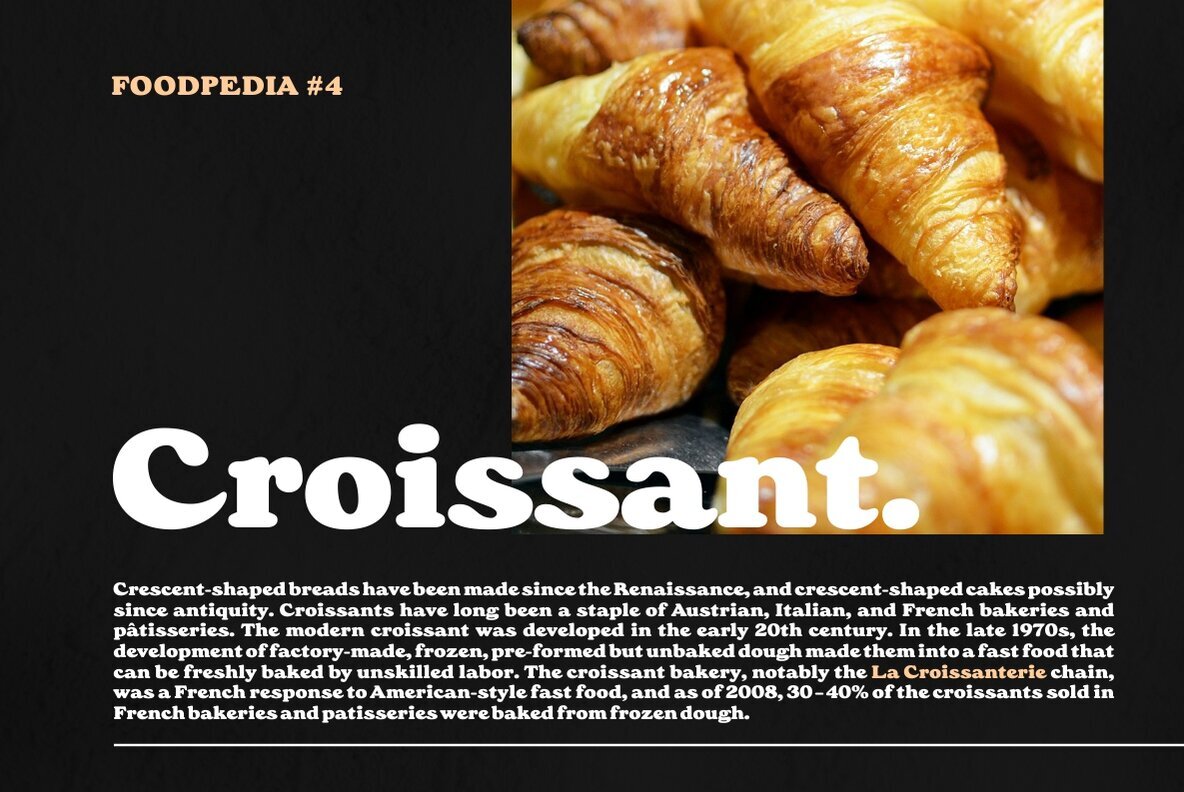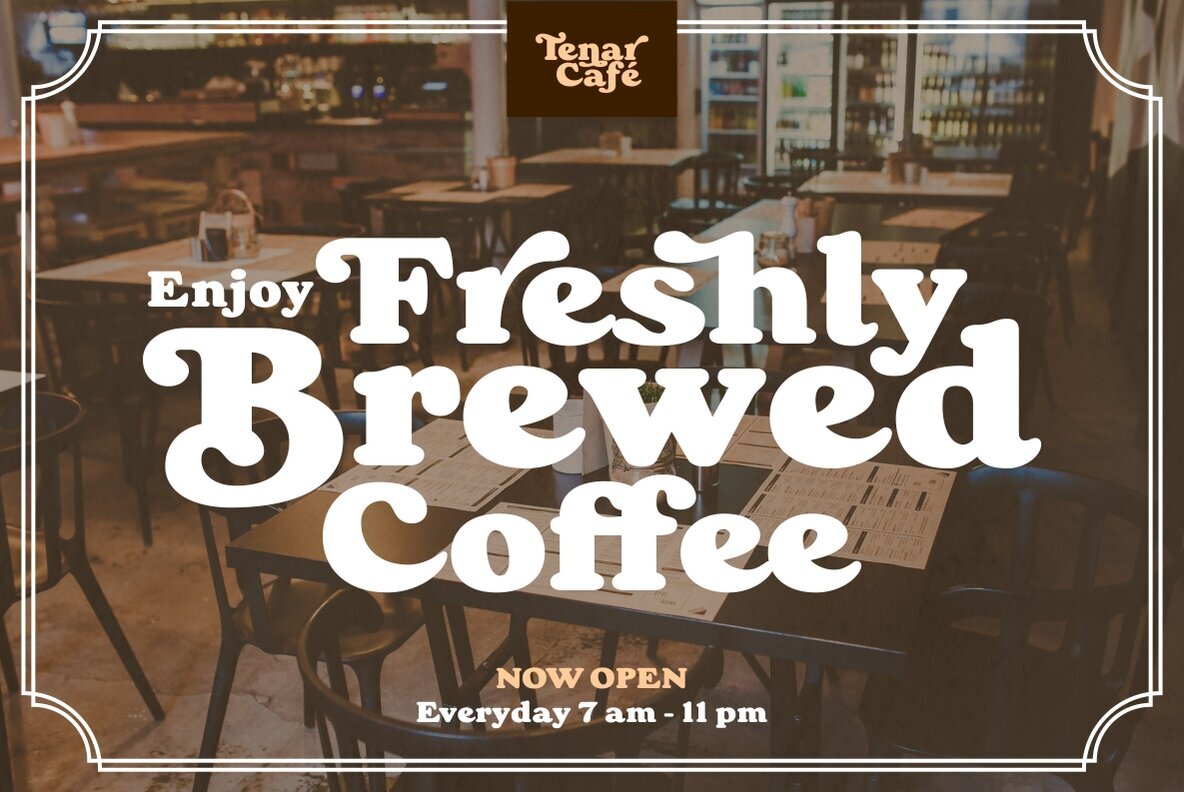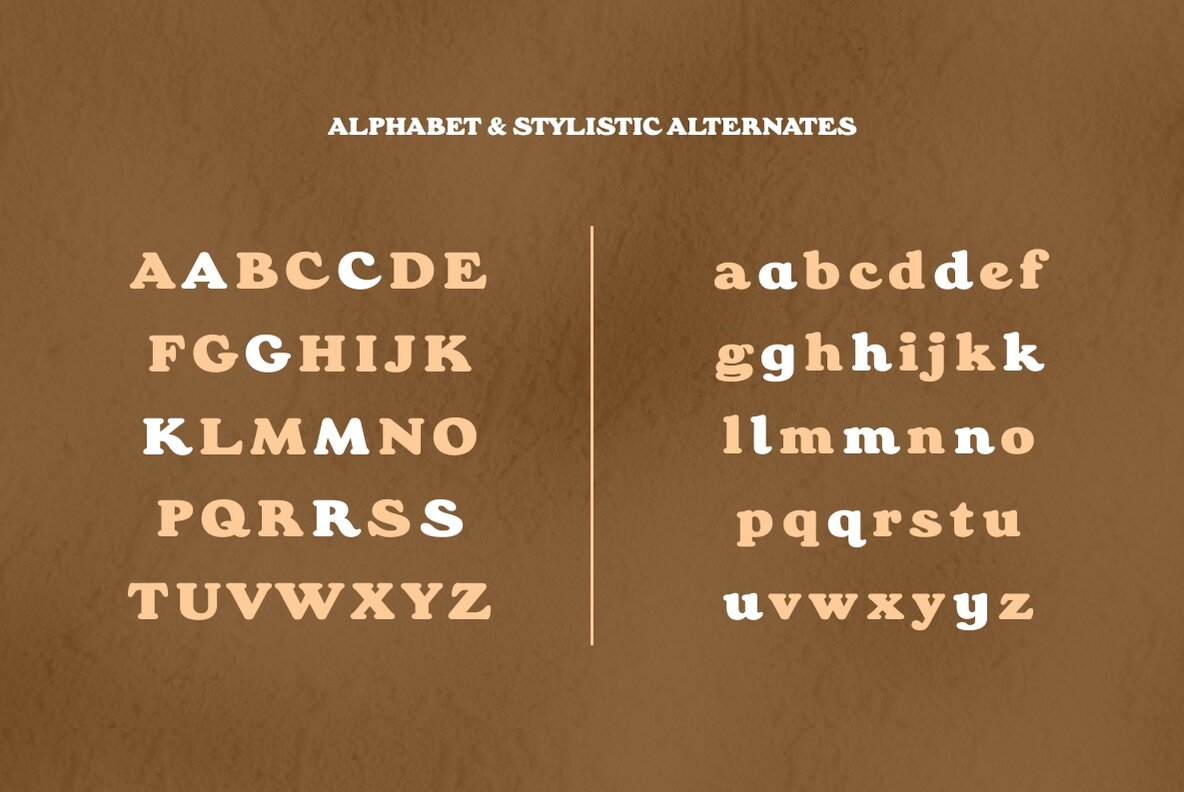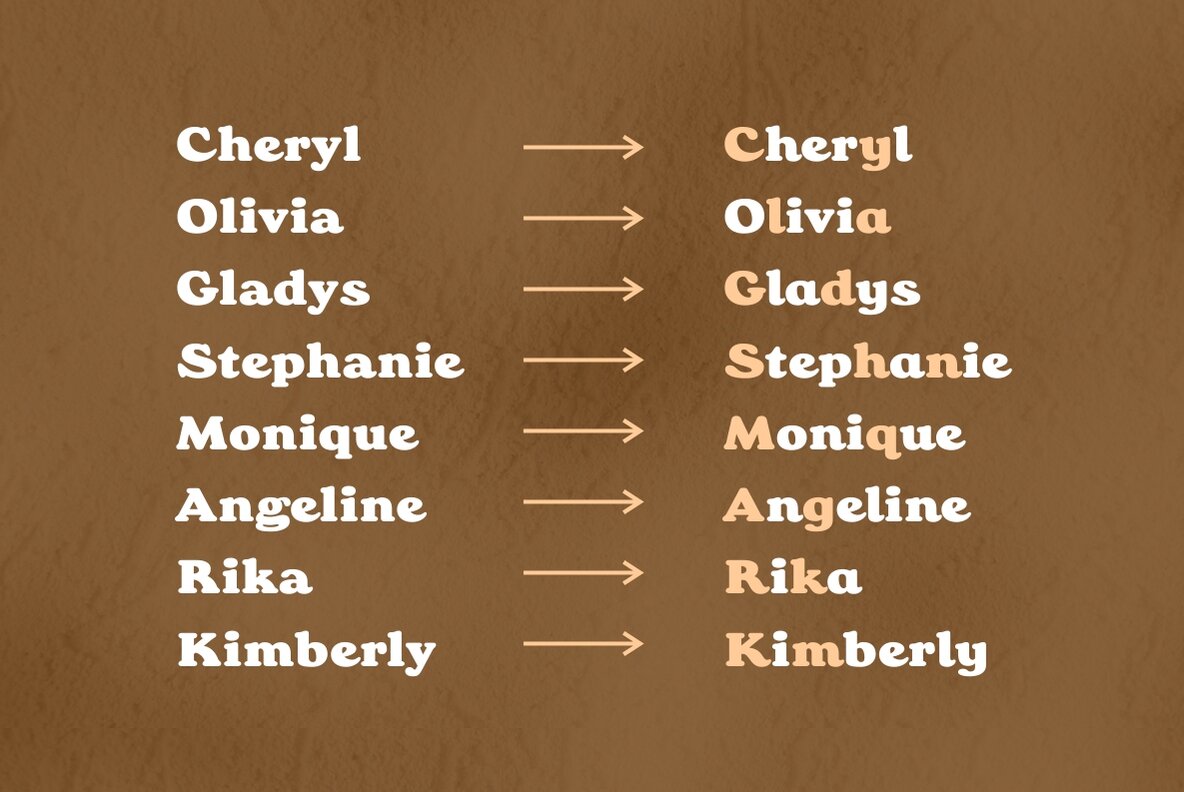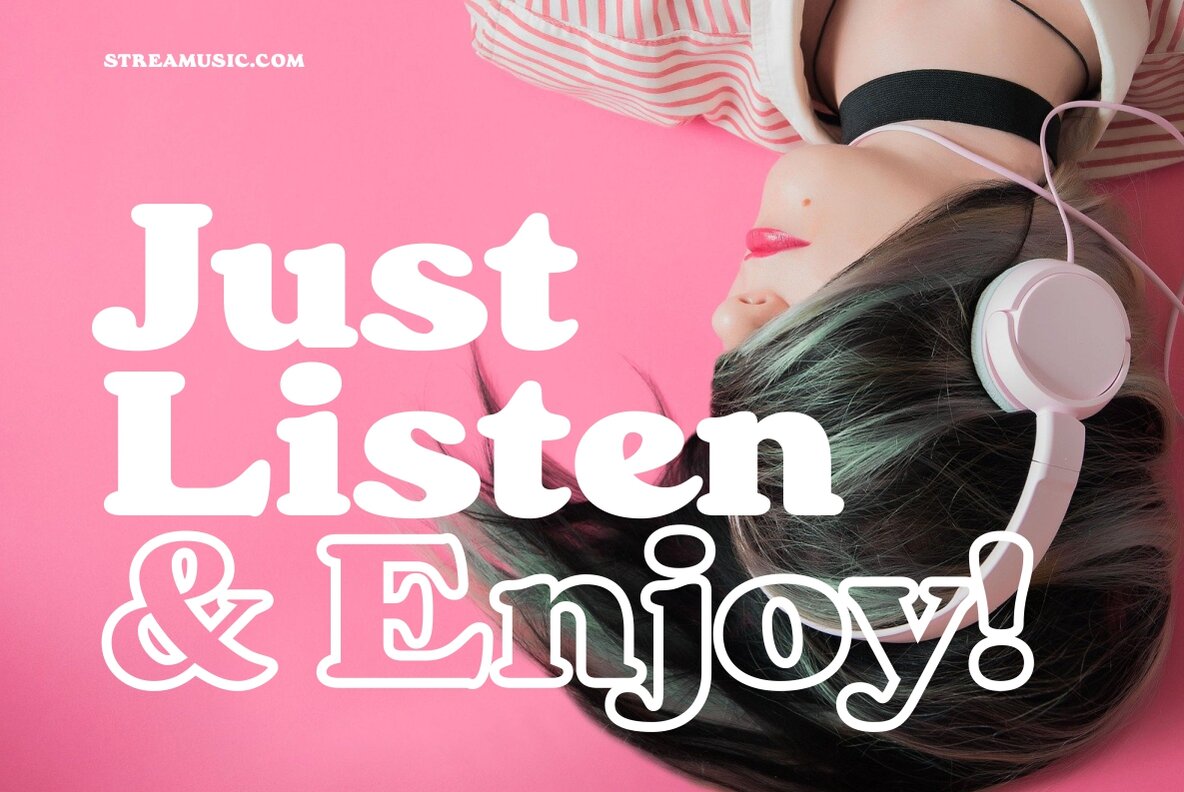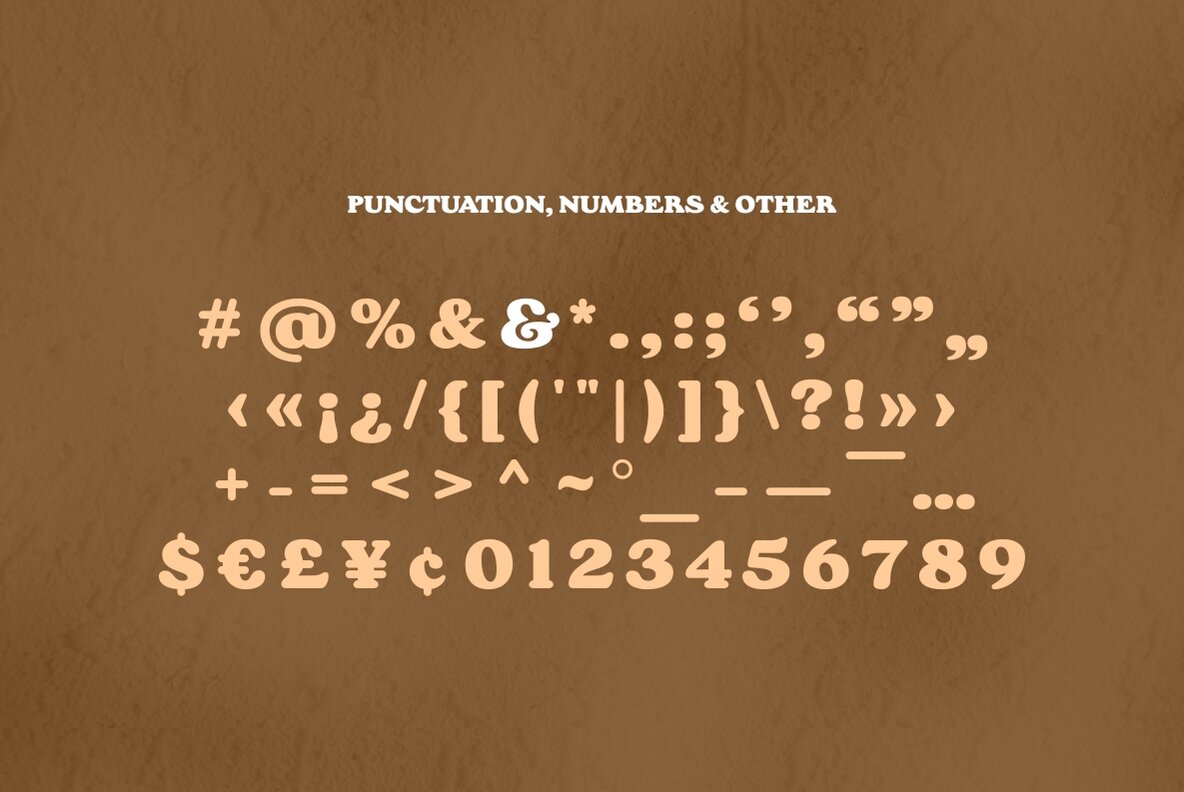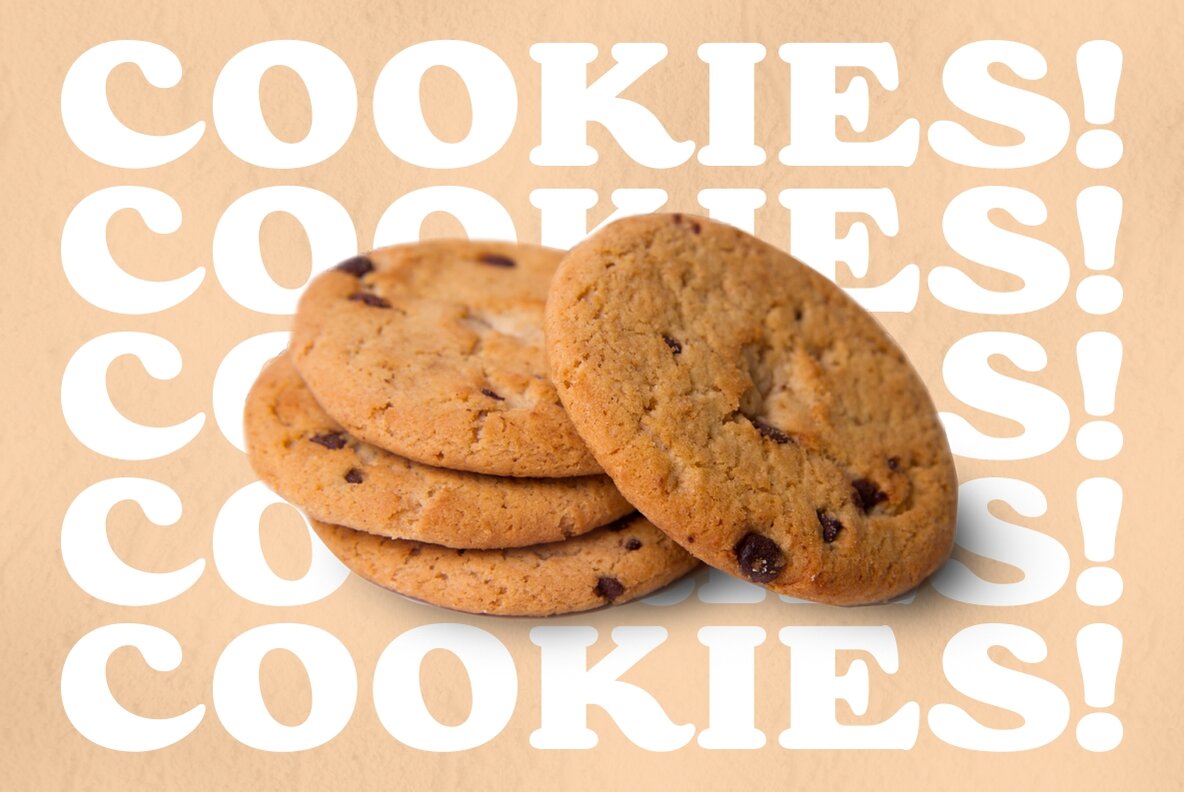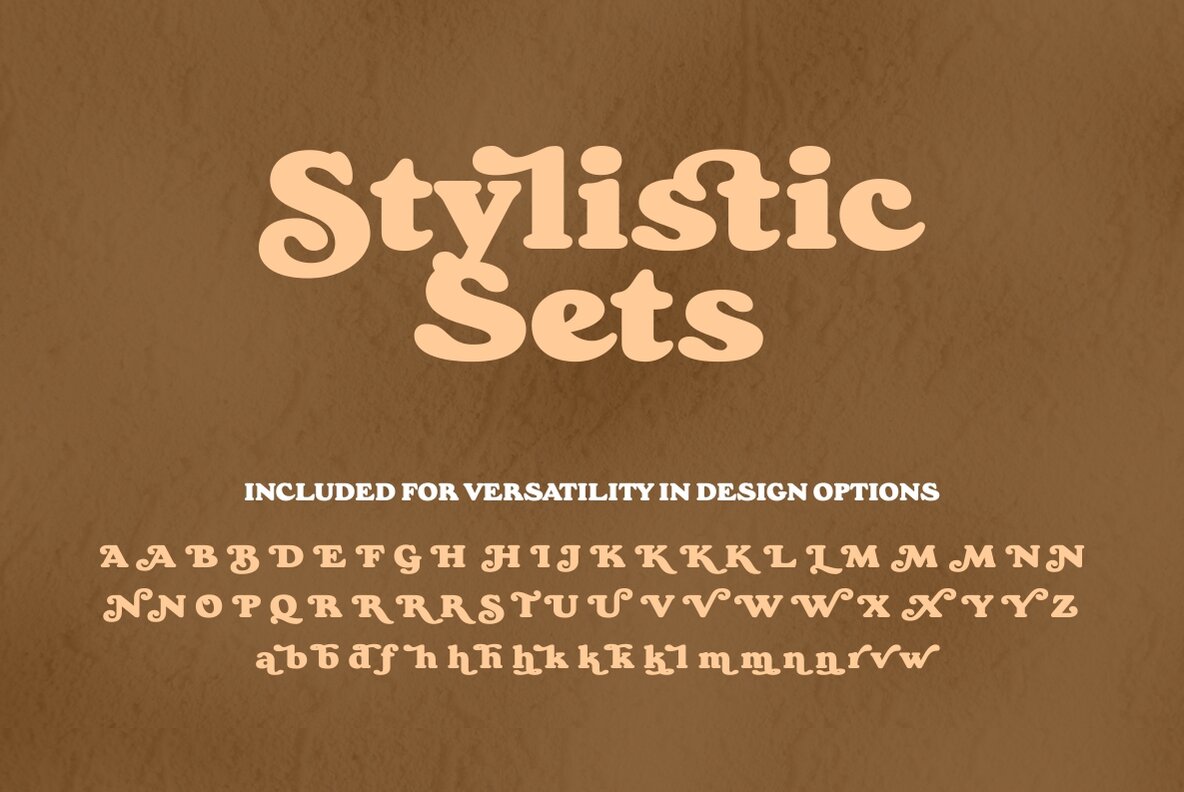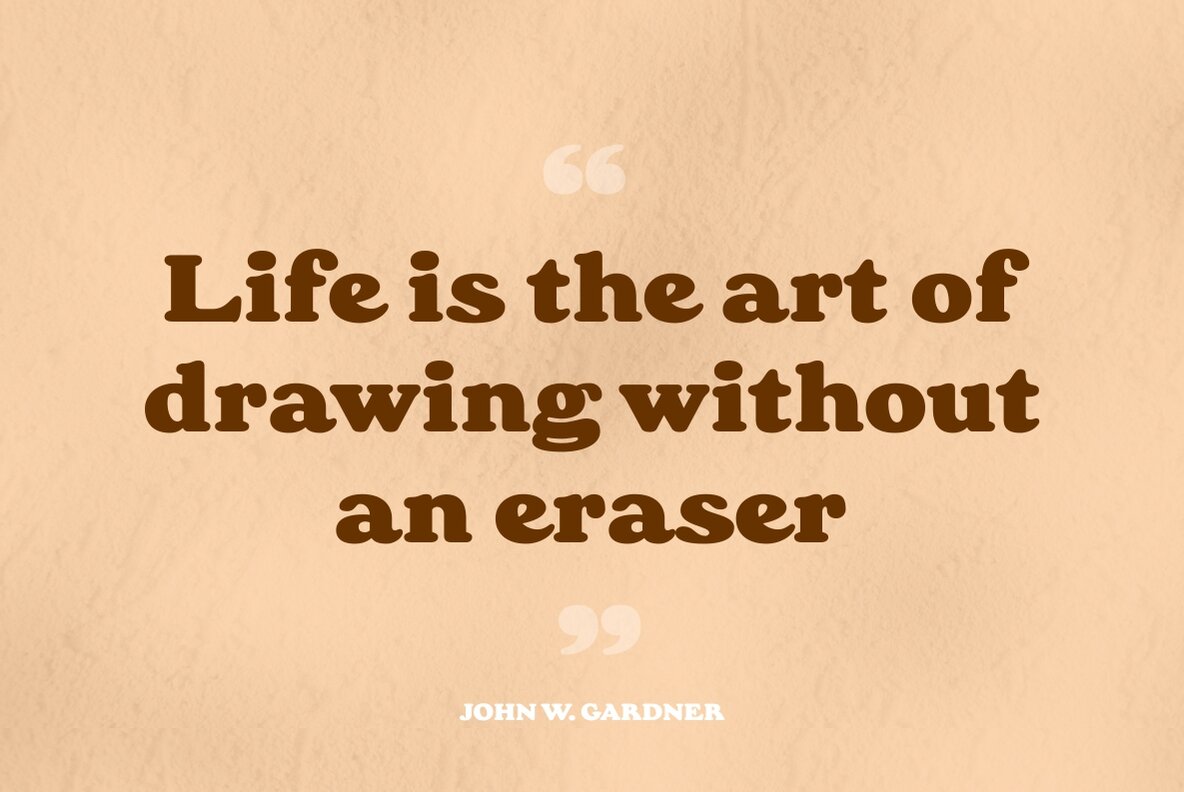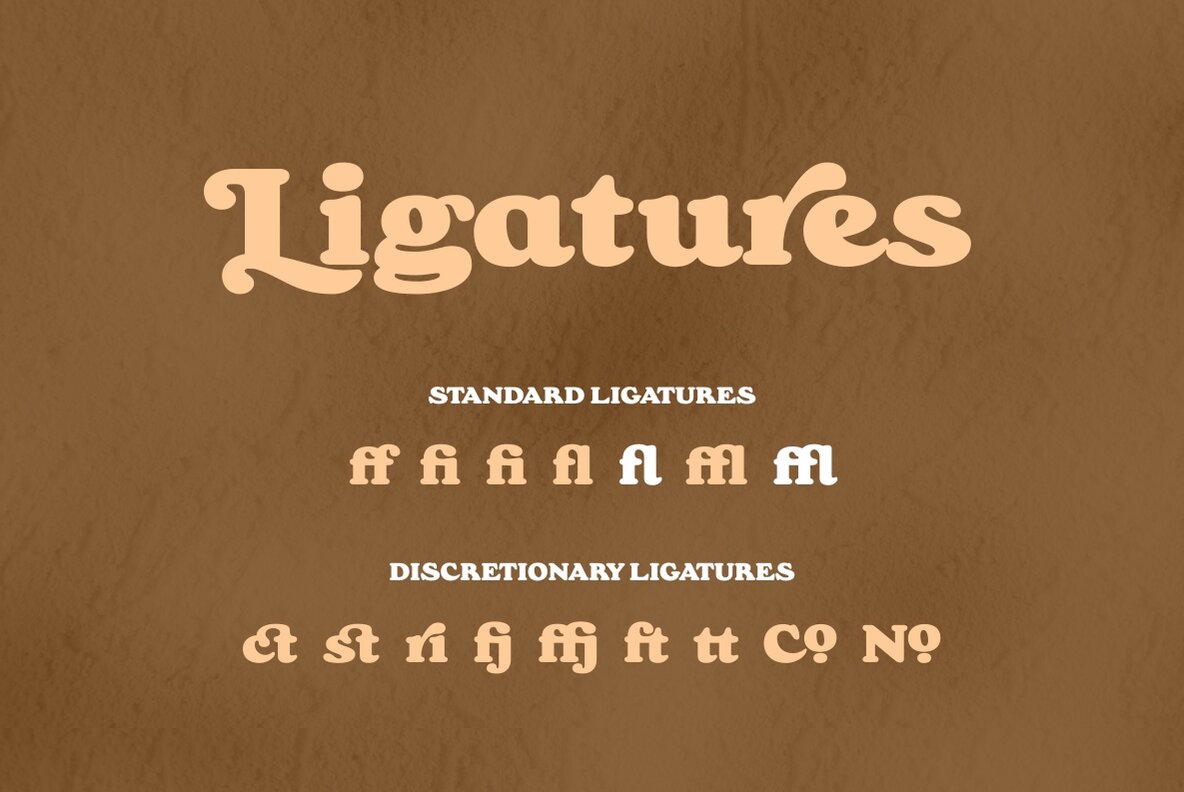
Tenar Black Font
Tenar Black Regular
Tenar Black offers designers a unique blend of Souvenir and Cooper Black influences, characterized by its durable appearance and elegant curves. This heavy display serif is ideal for making a strong visual impact in any design project.Tenar Black: A Robust Display Serif
Based in Magelang, Indonesia, Wahyu & Sani Co. is operated by Wahyu Wibowo and Sani Sanjaya. Both are graphic designers wih 10+ years experience. Wahyu & Sani Co. is a collaboration team which aim to produce typefaces for designers.